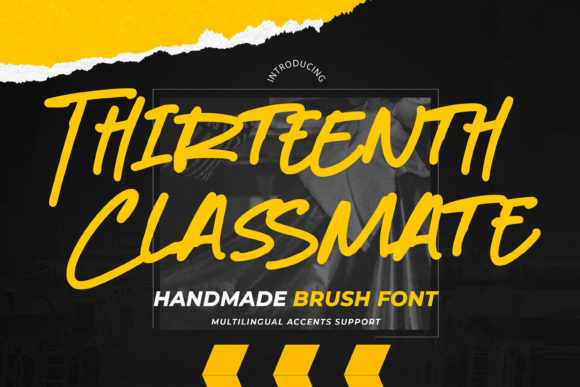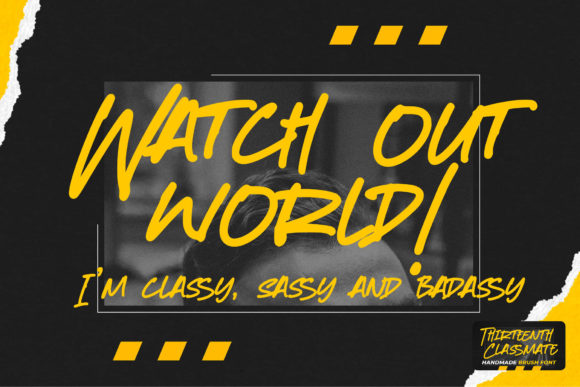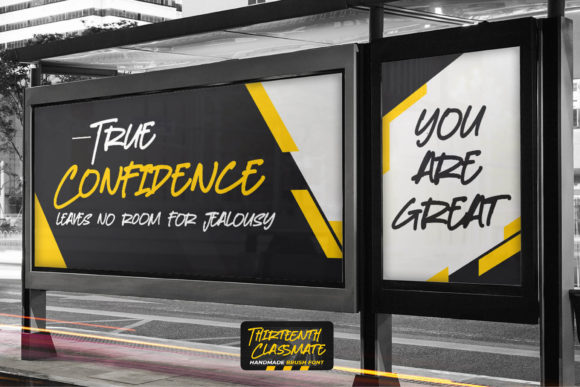
Thirteenth Classmate Font
About Thirteenth Classmate Font
Thirteenth Classmate is a unique and creative handwritten font that looks spectacular when added to any crafty idea! Authentic and classy, this typeface is a great choice for any project that needs amazing typography!